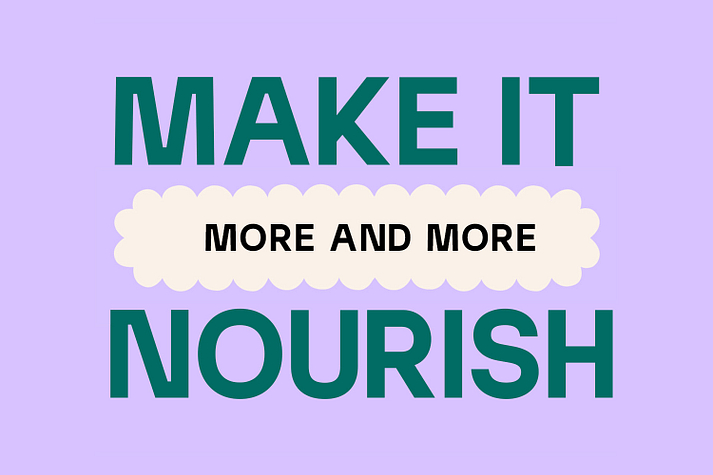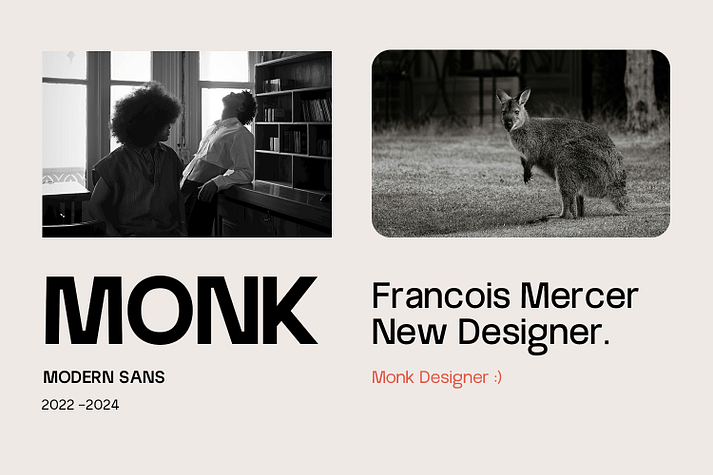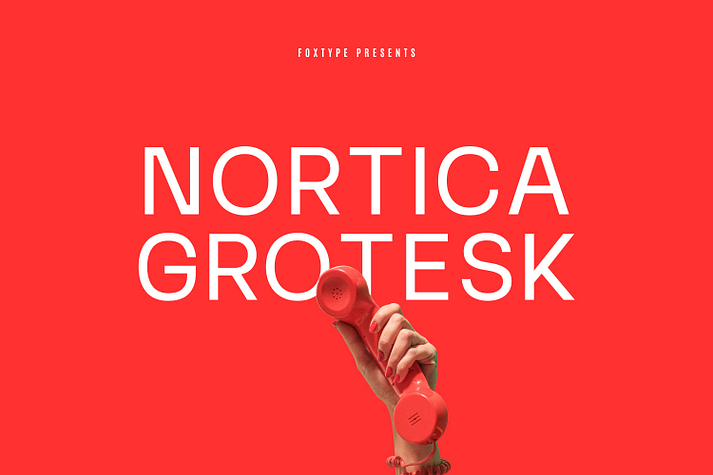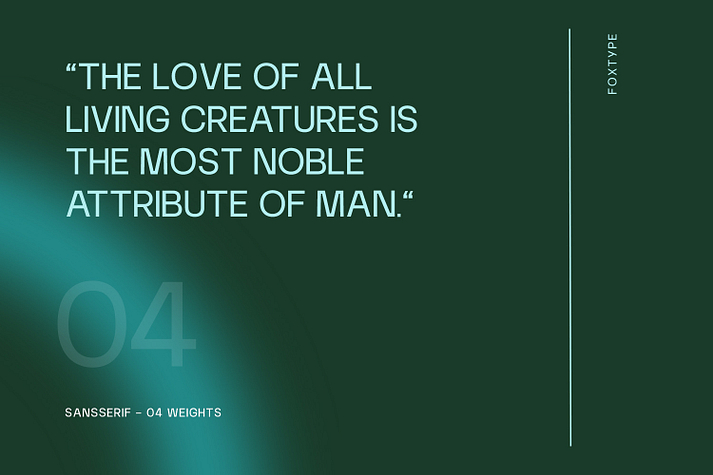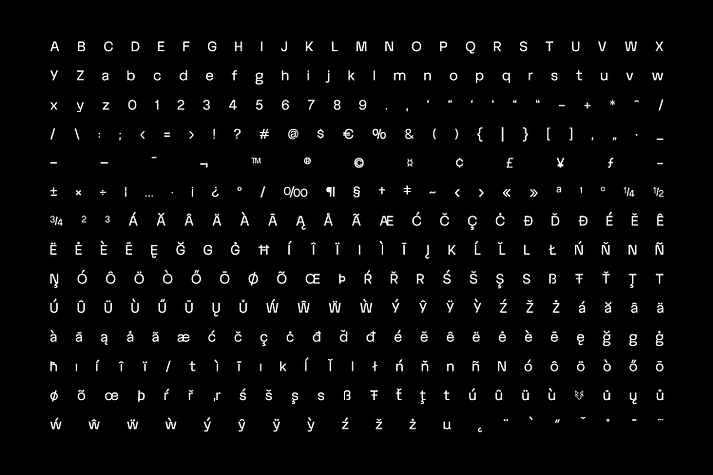
Nortica Typeface
Nortica Typeface is a display sans and sans serif font family. This typeface has four styles and was published by Foxtype.
Introducing Nortica Grotesk, a meticulously crafted modern sans-serif typeface perfect for a wide range of design projects. With 04 versatile weights, Nortica excels in creating striking headlines, captivating posters, and sophisticated branding materials. Its clean lines and contemporary style make it an ideal choice for magazine covers, logo designs, paragraph texts and more.